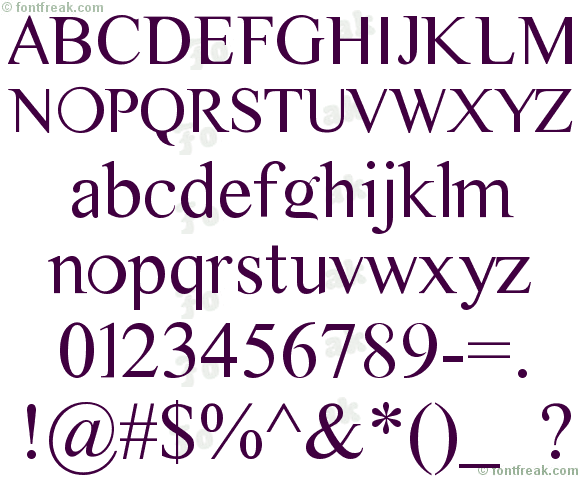
CMTiempo
About CMTiempo
CMTiempo by Charly Masci is a refined serif font that embodies elegance and sophistication. Released in 1996, this typeface showcases a harmonious balance between classic and contemporary design elements, making it a versatile choice for various projects. The font features moderate stroke weight and a well-defined contrast that enhances readability while adding a touch of character. The spacing between letters is thoughtfully designed, allowing for smooth flow and clarity in text presentation. CMTiempo's subtle decorative elements, such as gentle serifs and rounded edges, contribute to its approachable yet professional appearance.
This font is particularly well-suited for a range of applications. It excels in wedding invitations, where its classic style can evoke a sense of romance and elegance. Additionally, CMTiempo is an excellent choice for movie posters, lending a sense of sophistication that captures attention and conveys the film's theme. Restaurant menus can benefit from its readability and aesthetic appeal, creating an inviting atmosphere for patrons. Furthermore, graphic designers may find this font ideal for branding projects, as it exudes trustworthiness and creativity, making it a great fit for small business owners looking to establish a strong visual identity.
What sets CMTiempo apart is its ability to maintain a timeless quality while being adaptable to modern design trends. This quality makes it an invaluable asset for anyone looking to create compelling and engaging visual content.